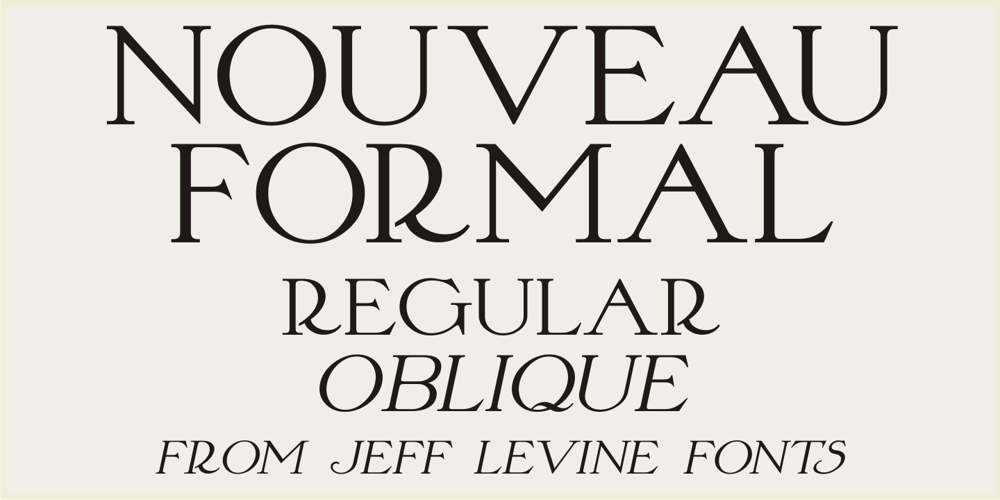
Nouveau Formal JNL Font Family was designed by Jeff Levine and published by Jeff Levine. Nouveau Formal JNL contains 2 styles and family package options. Lettering found on the cover of 1915 textbook pamphlets from the Woman’s Institute of Domestic Arts and Sciences, Inc. [of Scranton, PA] inspired the creation of Nouveau Formal JNL. This attractive serif typeface is available in both regular and oblique versions.